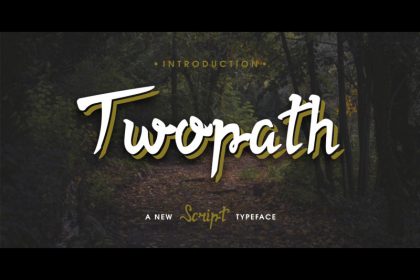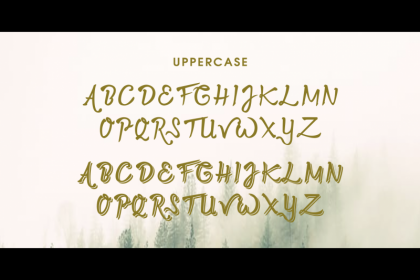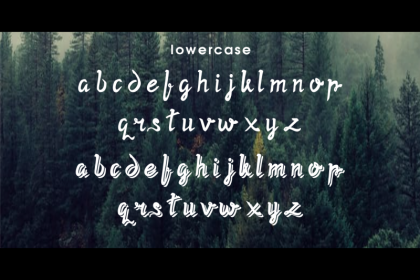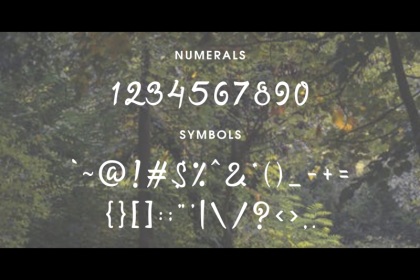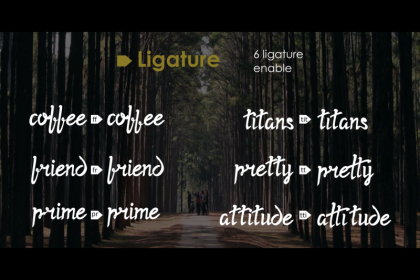
Twopath Script Font
Come with two styles: regular and shadow. It’s a calligraphy script font great for many cases: poster, logo, flyer, branding, signage etc